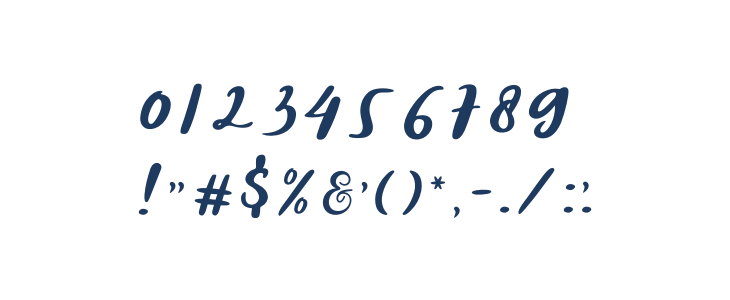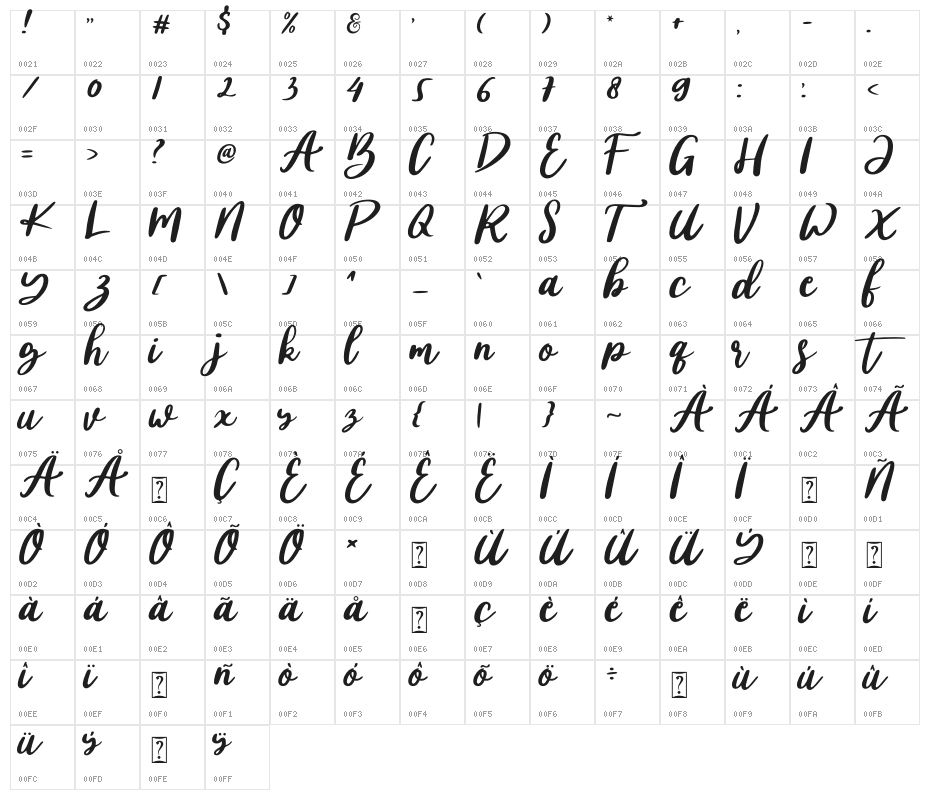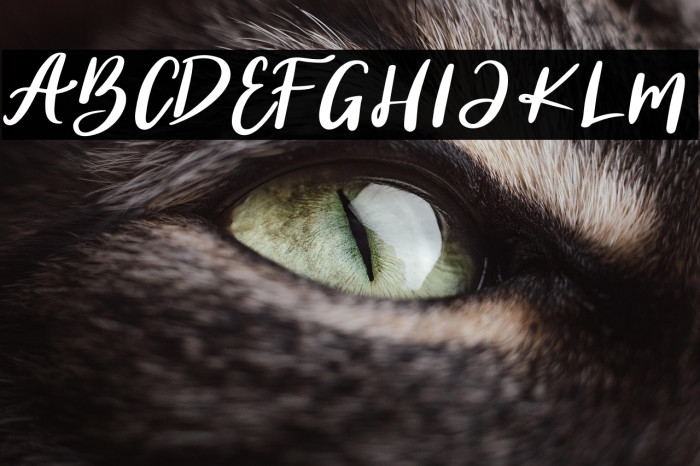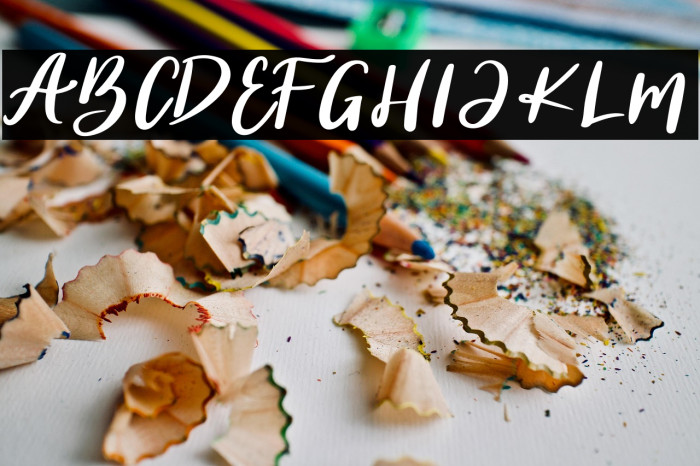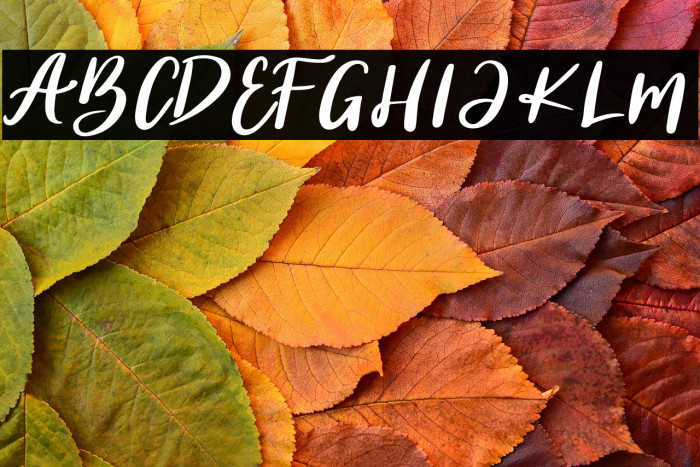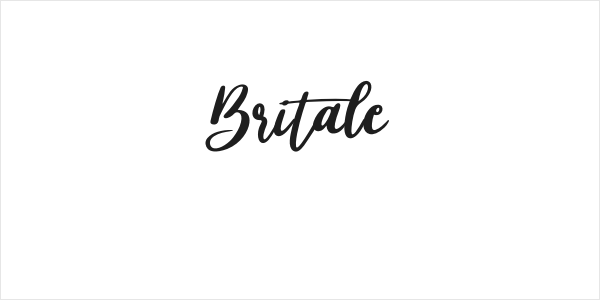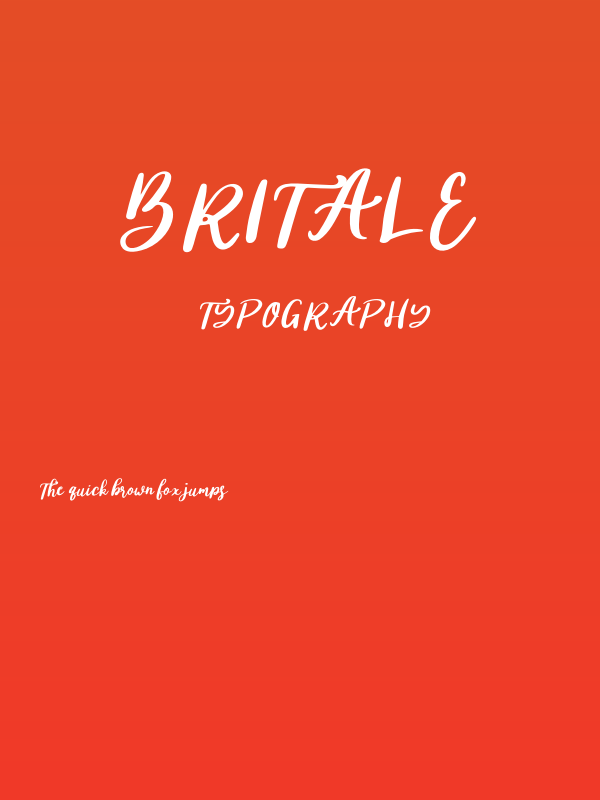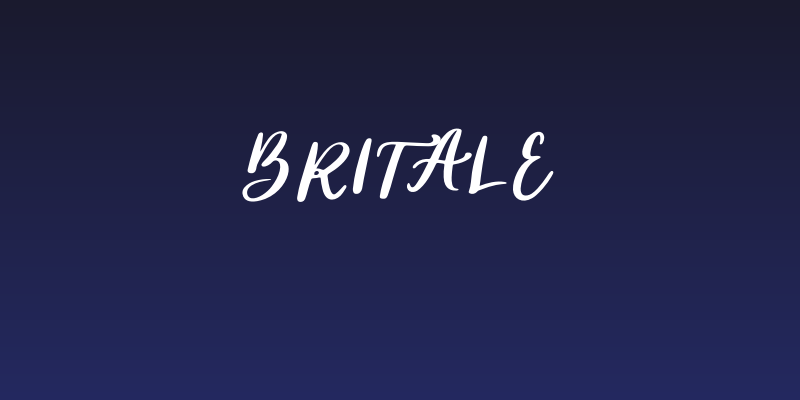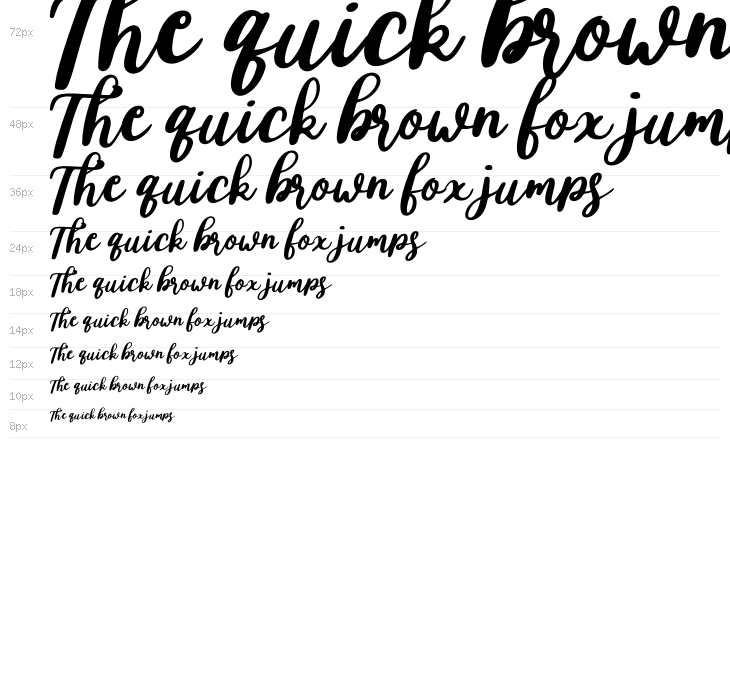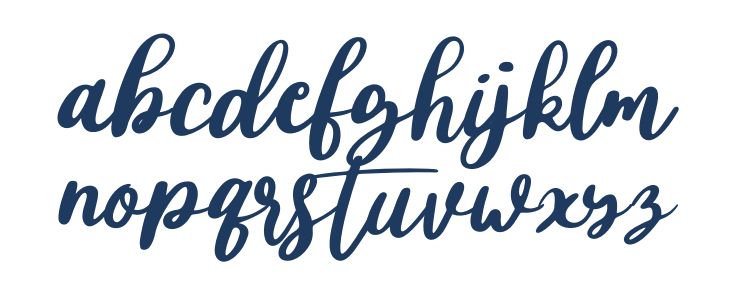
Britale Font
Britale Description
This font features a bold and expressive script style, characterized by its flowing and connected letterforms. The uppercase letters exhibit a dynamic and energetic appearance, with varying stroke widths that add a sense of movement and flair. The lowercase letters maintain a cohesive and harmonious look, complementing the uppercase with their smooth curves and elegant loops. The numerals are consistent with the overall style, offering a playful yet sophisticated touch. Special characters are thoughtfully designed to match the font's aesthetic, making it versatile for various design needs. The font's overall appearance is both modern and artistic, ideal for projects that require a personal and creative touch.
| Overall Style | Modern, Artistic |
| Use Case | Logos, Headlines, Invitations |
| Proposed Projects | Ideal for branding, invitations, greeting cards, and social media graphics. |